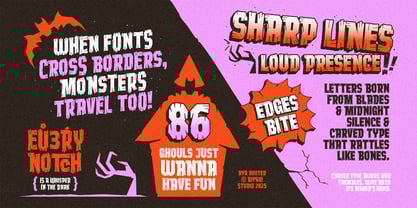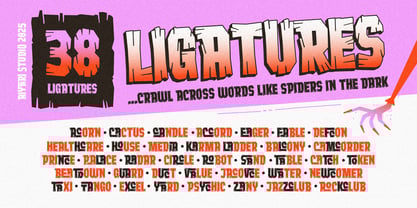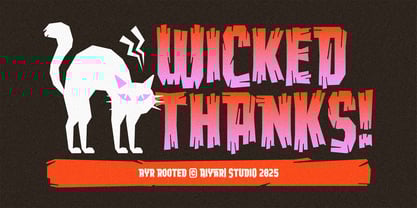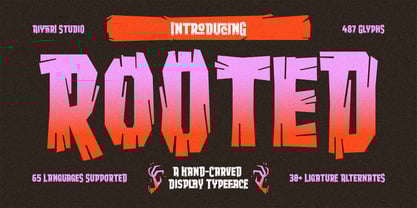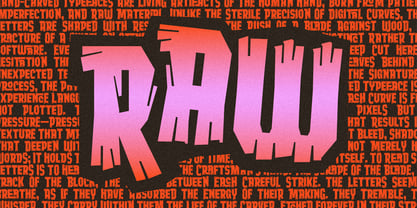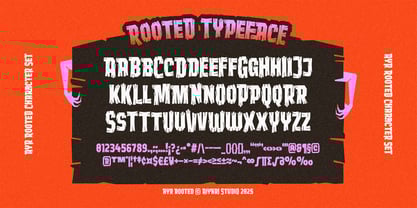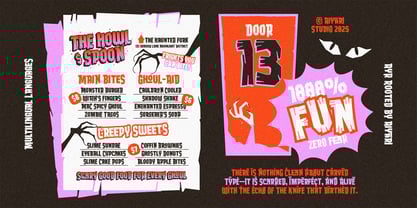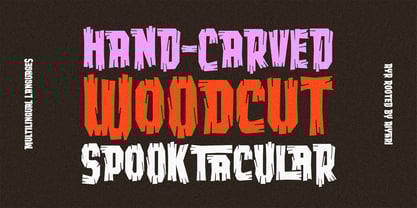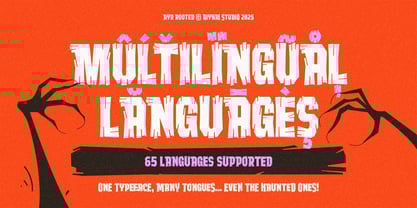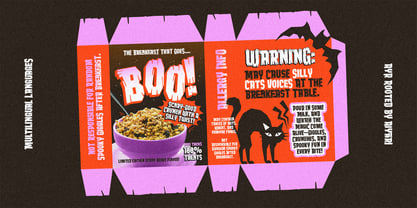
Ayr Rooted
by Aiyari
The Ayr Rooted Font Family was designed by Ricky Rinaldi and published by Aiyari. Ayr Rooted contains 1 styles. More about this family
Meet Rooted, the typeface that brings the heat. Inspired by vintage comic cover (think classic horror and adventure!), Rooted is all about raw power and retro grit, but built for today's designs. We've meticulously crafted sharp, angular forms that channel that hand-carved feel and deliberate imperfection. It's the perfect way to give your flyers,movie titles, and branding an authentic, unforgettable character.
Designers: Ricky Rinaldi
Foundry: Aiyari